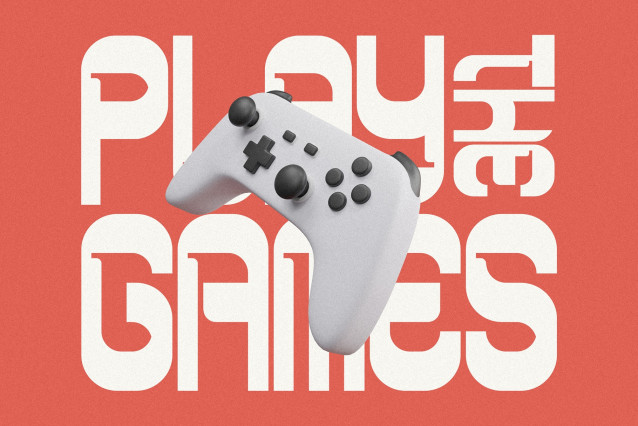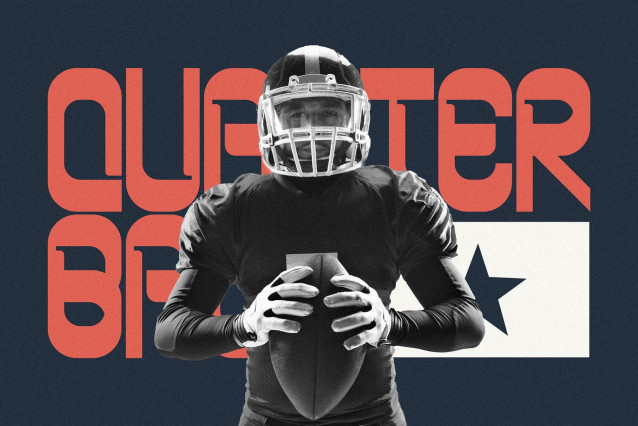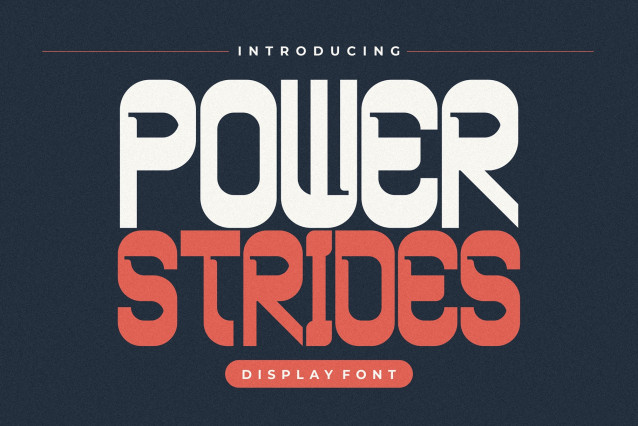
Power Strides Font
Power Strides Font – Powerful Display Font for Bold and Modern Design. Typography is more than just letters; it’s a voice for your brand. Power Strides – Powerful Display Font was created to give designers a typeface that radiates strength, boldness, and modern energy. This powerful display font is designed entirely in uppercase, delivering impact and authority in every character.
Whether you’re designing logos, posters, event graphics, or social media banners, Power Strides provides the clarity and dominance you need. With its geometric power and clean all caps form, this powerful display font ensures your message always stands tall.
Powerful Display Font Built for Impact
Power Strides is more than just another display typeface—it’s engineered to be a powerful display font that makes headlines pop, branding stronger, and advertising unforgettable. The bold strokes and proportional balance give it a commanding presence, while its uppercase structure communicates confidence and professionalism.
Designers across industries—from sports and technology to lifestyle branding—choose Power Strides to achieve visuals that can’t be ignored.